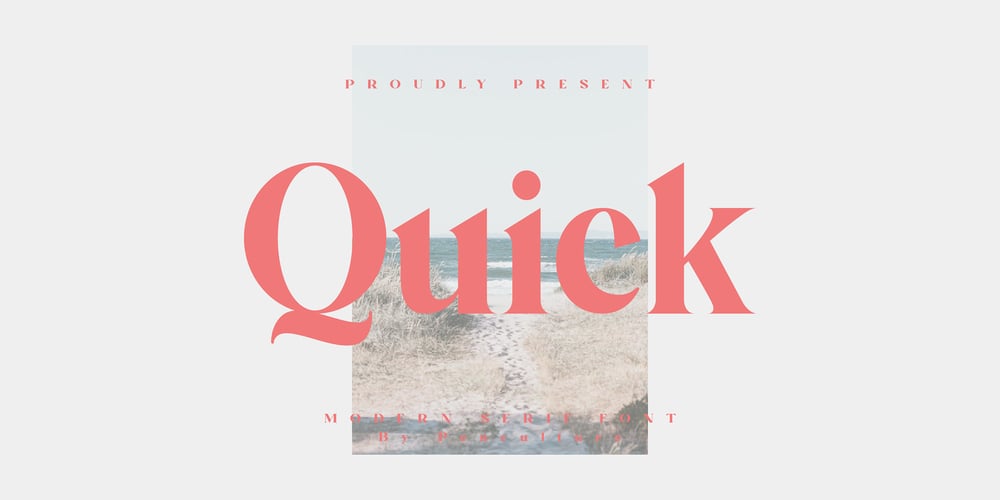
Quick Font Family was designed by Revo Farsiky and published by Pen Culture. Quick contains 1 styles and family package options. Quick is modern elegant serif typeface. this font perfect for branding, logo design, product packaging, magazine headers, and so much more.I really hope you enjoy it – please do let me know what you think, comments & likes are always hugely welcomed and appreciated. More importantly, please don’t hesitate to drop me a message if you have any issues or queries.Thank you